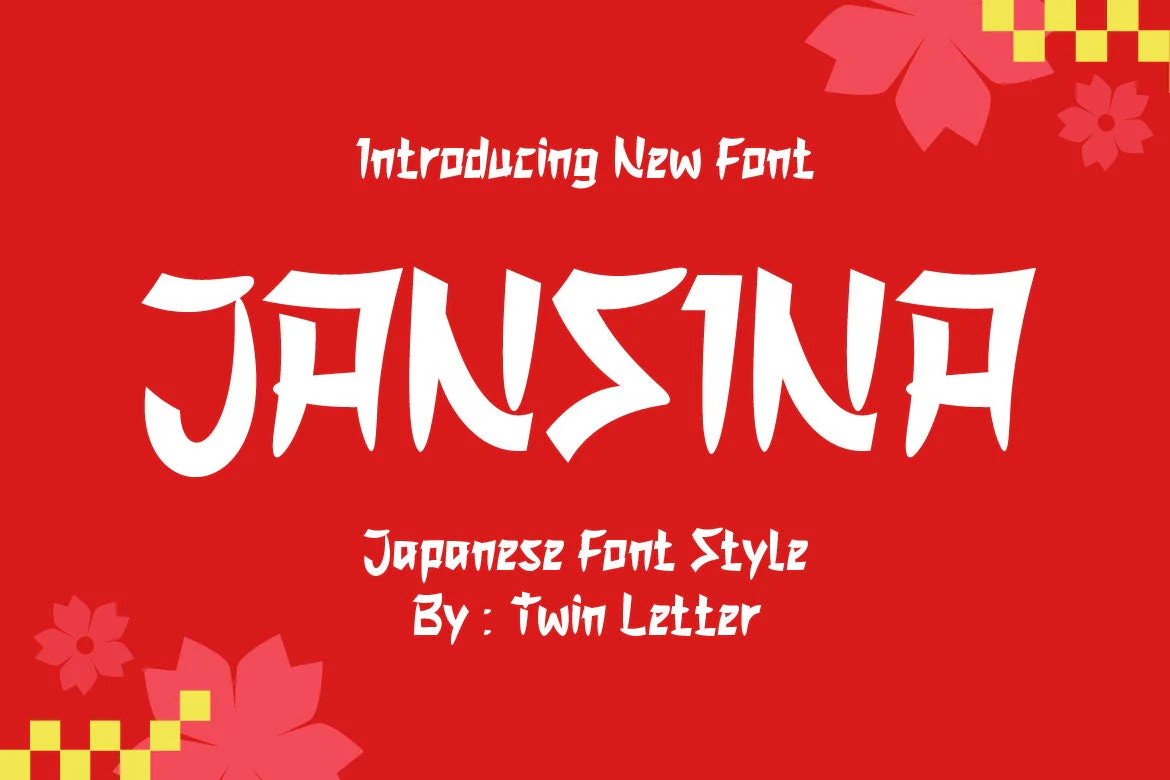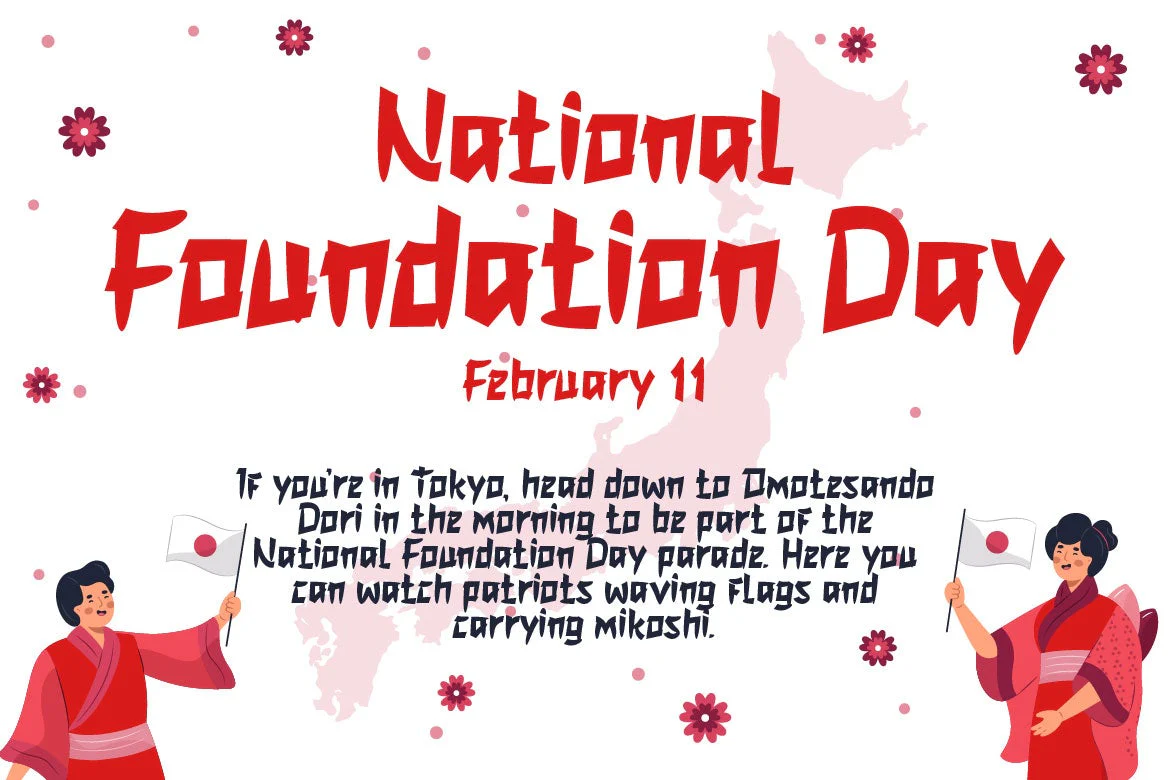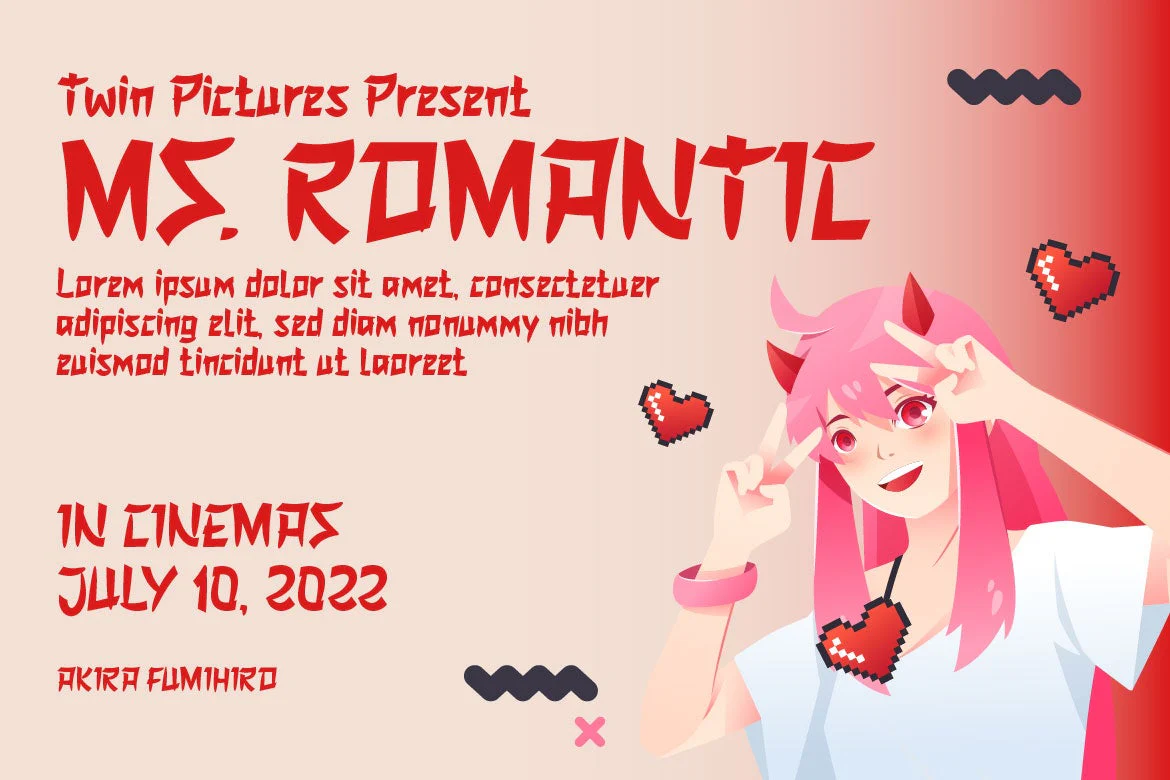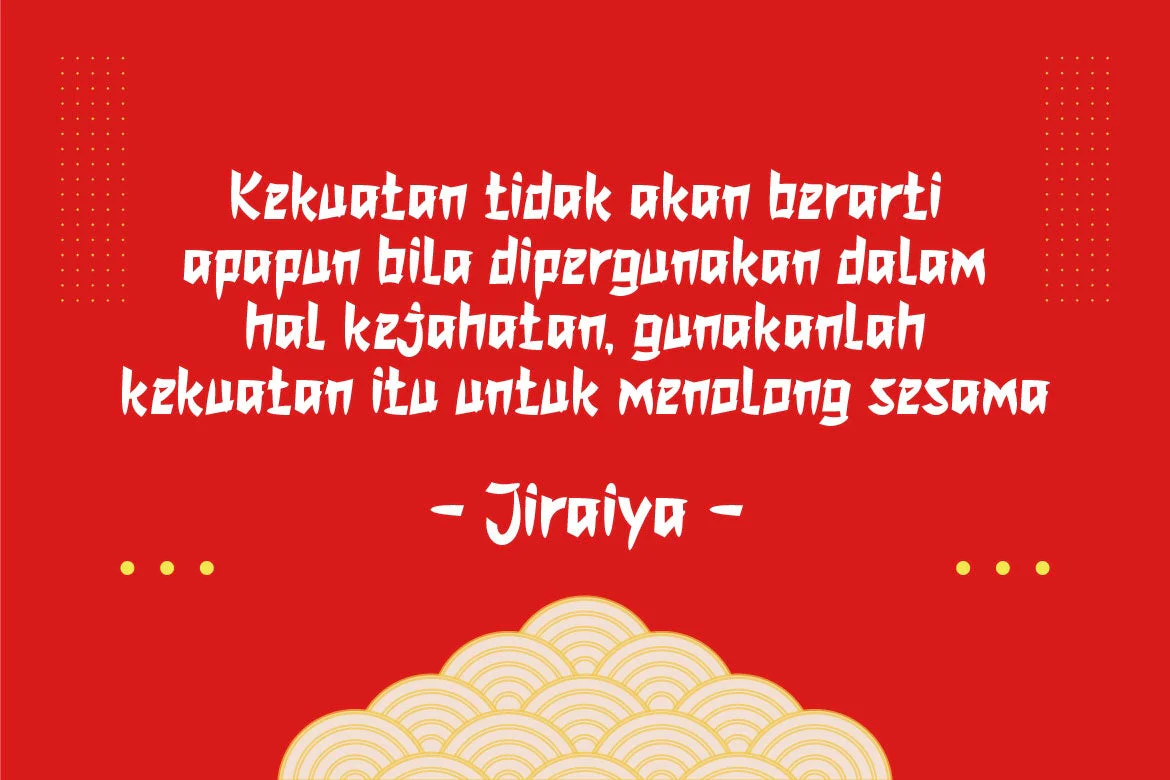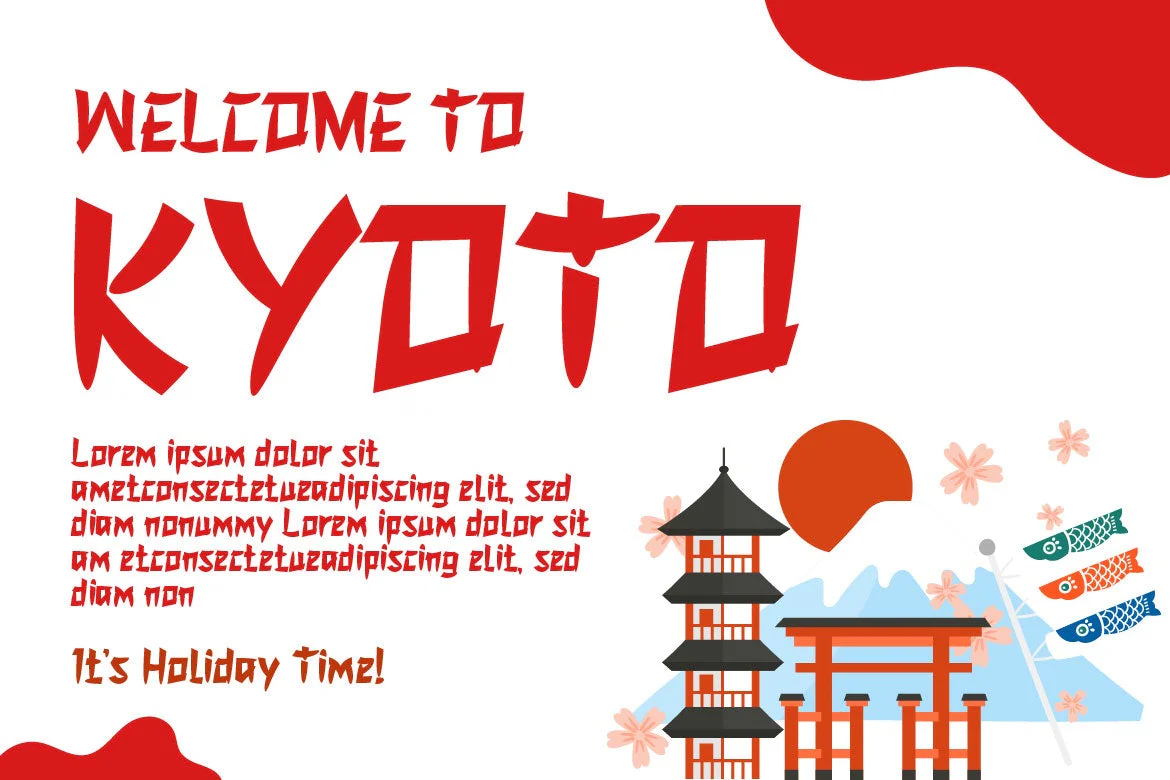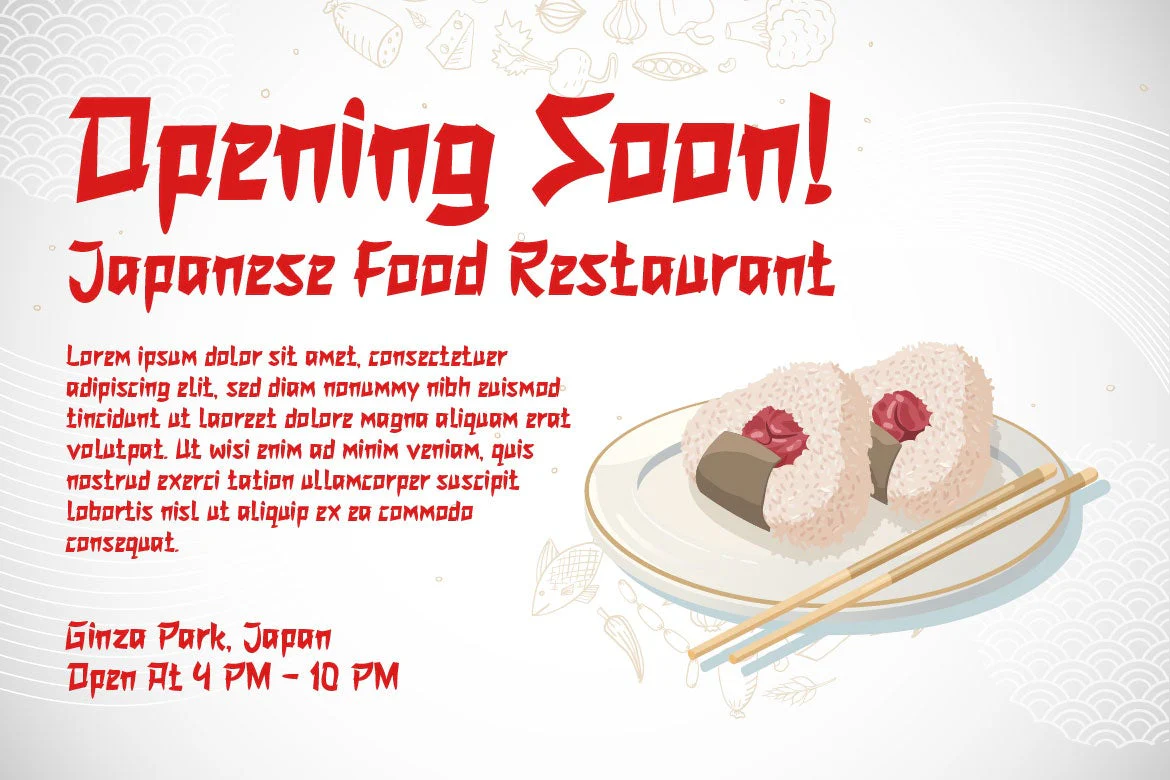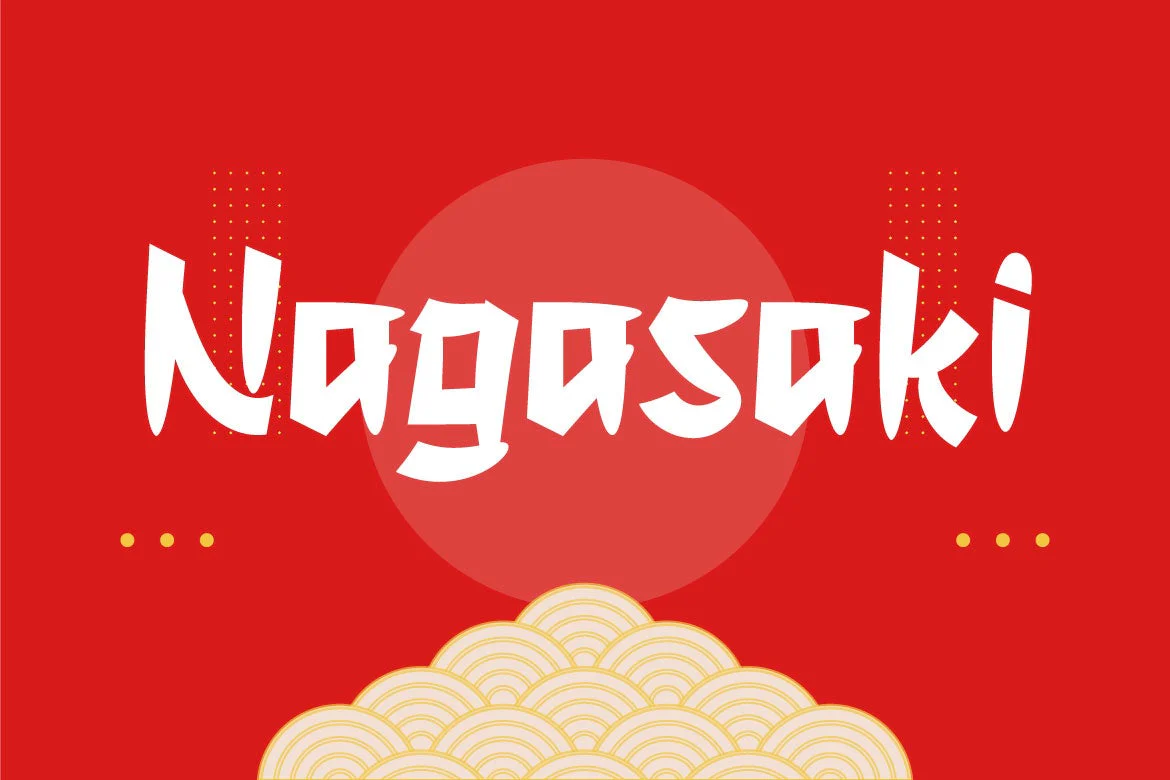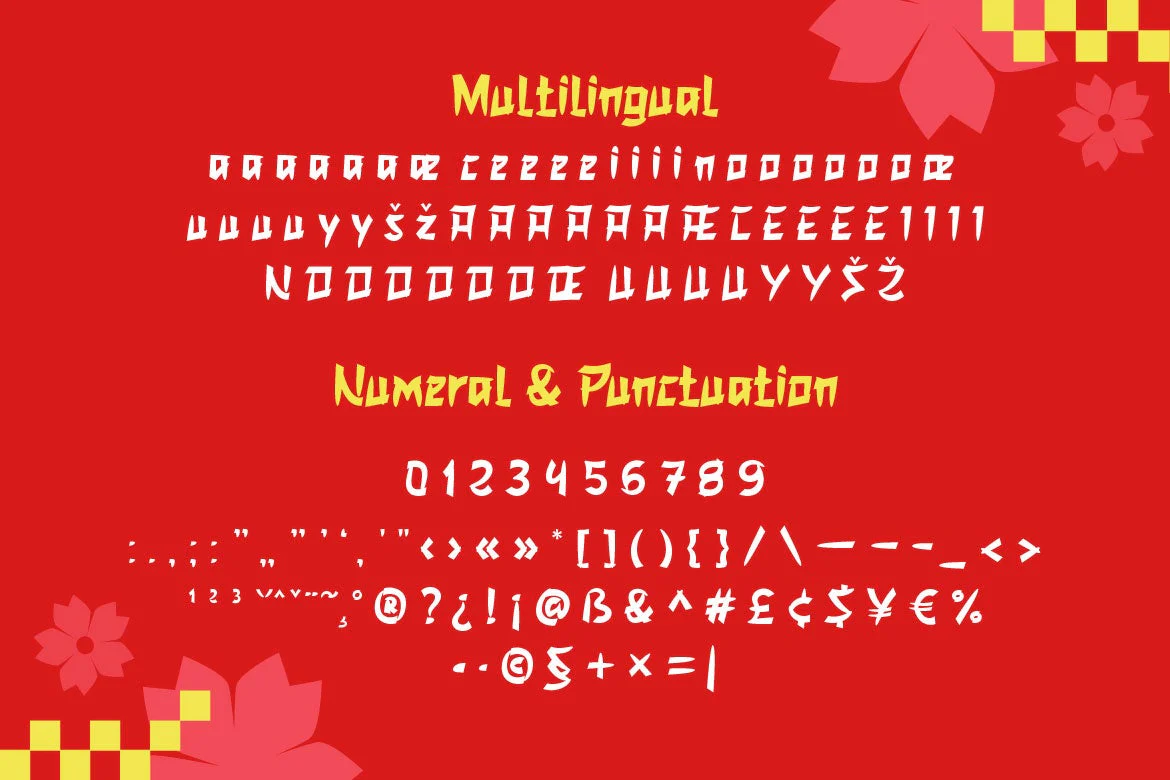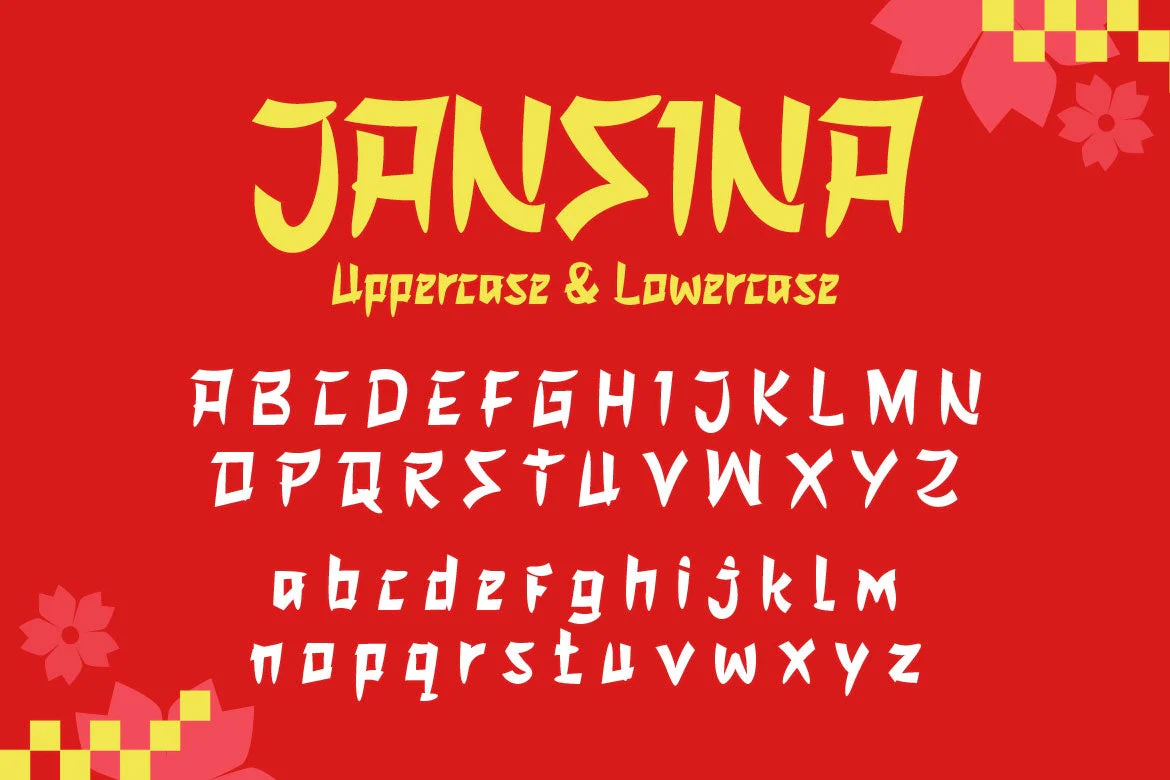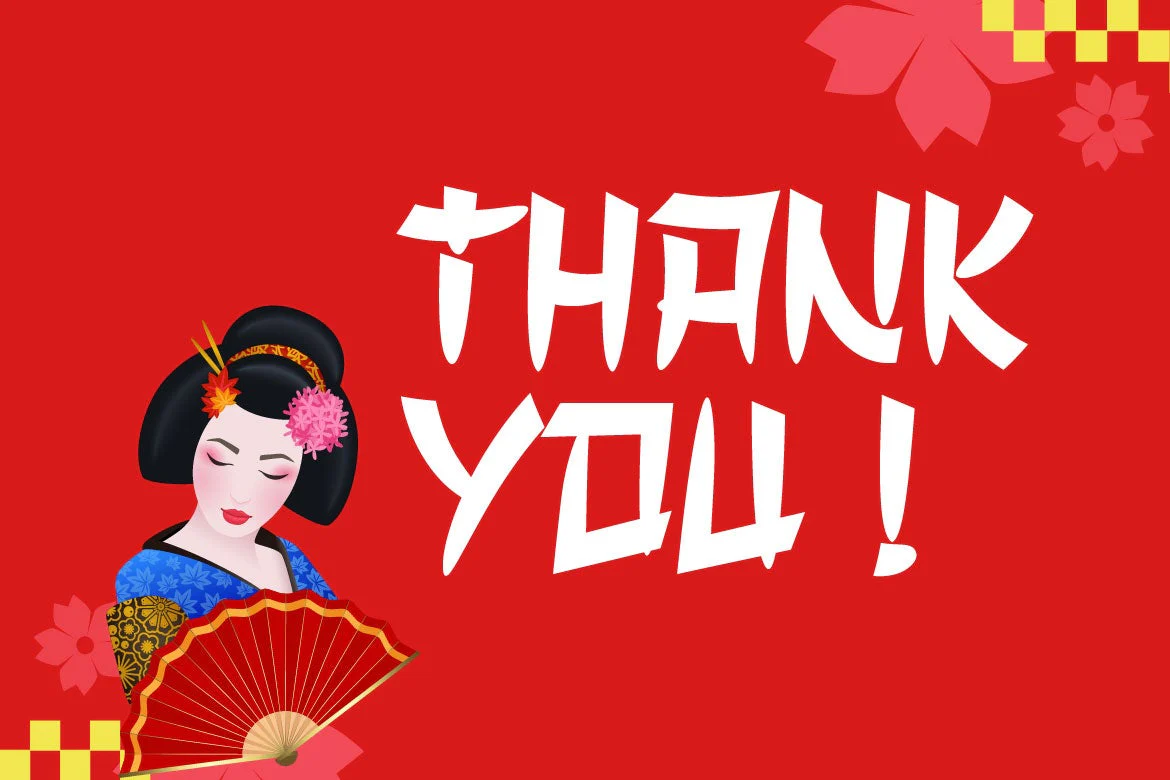
JANSINA Faux Japanese Font
Jansina is a Japanese-style display typeface with a unique shape that is ideal for making your project stand out in Japanese culture. This typeface will make all of your projects consist of a graphic presentation that fits and is precise, but it is not restricted to that.
Logotypes, food banners, branding, brochure, posters, movie titles, book titles, quotes, and more may all benefit from this font.
Of course, using this font in your various design projects will make them excellent and outstanding; many viewers are drawn to the striking and unusual graphic display.
Start utilizing this typeface in your projects to make them stand out.
Jansina is a Japanese-style display typeface with a unique shape that is ideal for making your project stand out in Japanese culture. This typeface will make all of your projects consist of a graphic presentation that fits and is precise, but it is not restricted to that.
Logotypes, food banners, branding, brochure, posters, movie titles, book titles, quotes, and more may all benefit from this font.
Of course, using this font in your various design projects will make them excellent and outstanding; many viewers are drawn to the striking and unusual graphic display.
Start utilizing this typeface in your projects to make them stand out.